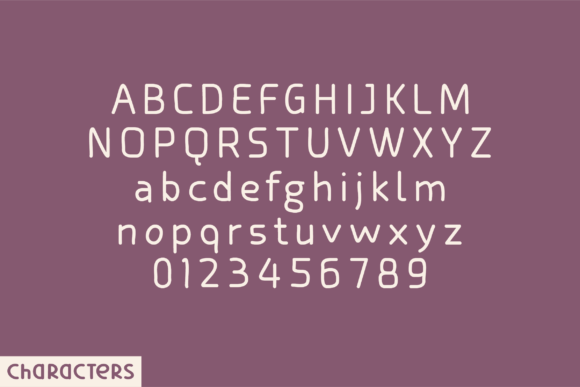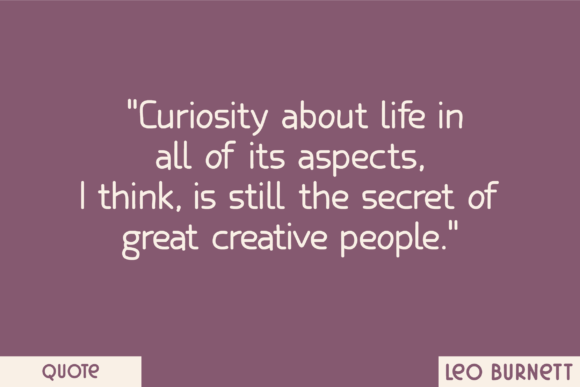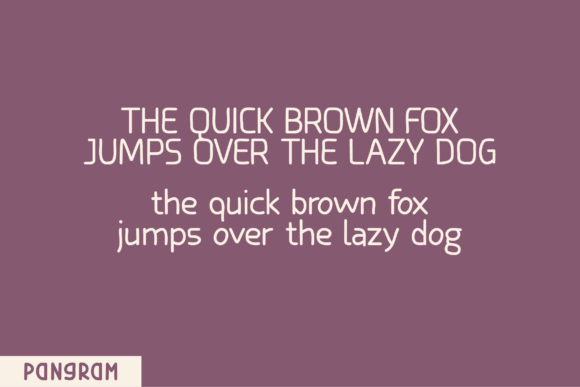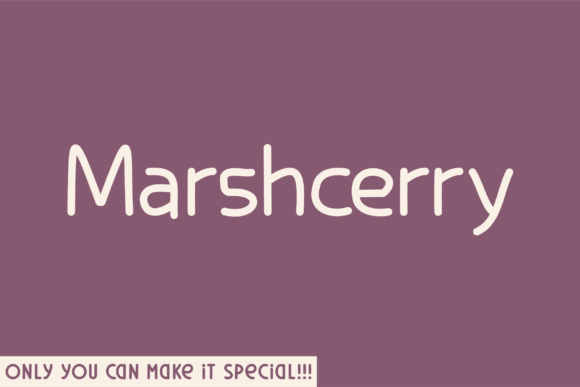
Introduction to Marshcerry Font
Marshcerry is a natural sans serif font created without changing a single node in each character’s indentation – this makes this font very interesting and unique.
Perfect for quotes, notes, tees, and any product design .
Key Features of Marshcerry Font